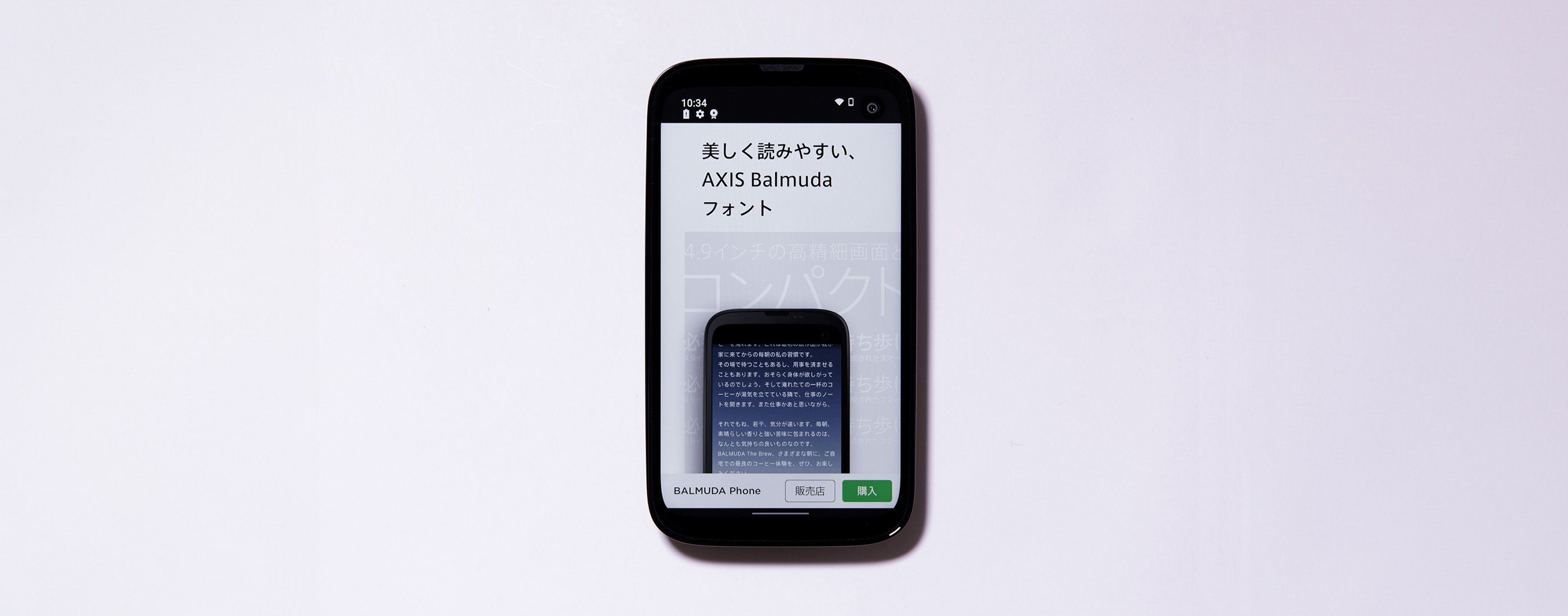
Improvement of Experience Value Through Lively Characters
BALMUDA is a creative technology company established in Tokyo in 2003. Their mission is to be helpful to others by achieving a future dreamed of by free minds using the power of technology. The new brand, BALMUDA Technologies, was created for the field of IT devices and services in August 2021. For its first product, the 5G BALMUDA Phone was announced. BALMUDA Phone is a smartphone with a 4.9 inch high definition screen and a beautifully curved back surface; its compact, lightweight, easy to hold, natural size hardware fits in the hand the longer you use it, and its basic application of a simple but comfortable feeling in use is originally developed.
It is BALMUDA’s view that many things done on a phone take place through characters shown on the screen, and the quality of fonts is connected to usability and the comfort of using a product. The value of parts that cannot be measured by specification was emphasized the most, and they aimed at improvement of experience value of the characters, which are in contact for a long time during smartphone use.
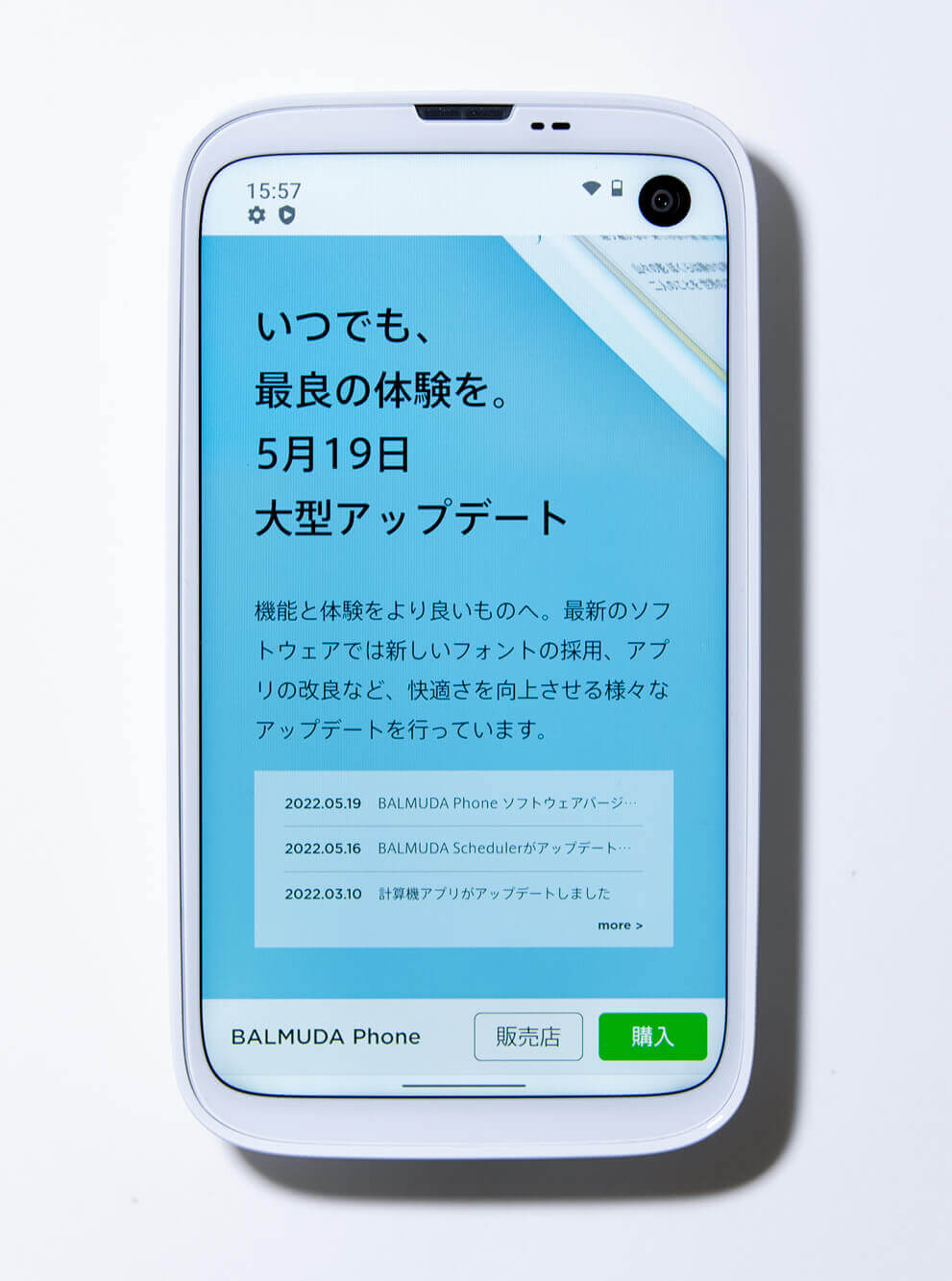
“Due to the wide inside space between strokes, the characters are clear and easy to read even when the size is reduced. This gives an elegant and light atmosphere in the moderately rounded element. My first impression of the weight was that it was easy to recognize even though it is thin, and reading is continuously comfortable. AXIS Font is understood as one of the most beautiful Japanese fonts in the company. According to consensus in the company, AXIS Font is the best in terms of Japanese readability and beauty of sentences,” says Designer Ryo Akao, UI Team, Technology Dept., IT Products Div.
Unlike household electric appliances in which the functions cannot be changed at all after shipment, it is possible to continuously improve the functions of smartphones by updating software after release. Out of a desire to improve the experience value of BALMUDA Phone after release, BALMUDA decided to replace the system font. As features of the system font, not only readability but also a reduced sense of wrongness is important. In addition to the appearance of various applications and websites, there is combination of languages apart from Japanese, emoji, etc. As the system font is also used in a part of the interface, it was necessary to eliminate a sense of wrongness under any circumstances.
Various updates, including application improvement, were made in May 2022 to improve comfort, to pursue beauty, readability, and balance of character combinations as a display font, and AXIS FitFont was adopted as “AXIS Balmuda” with the optimal numerical value.
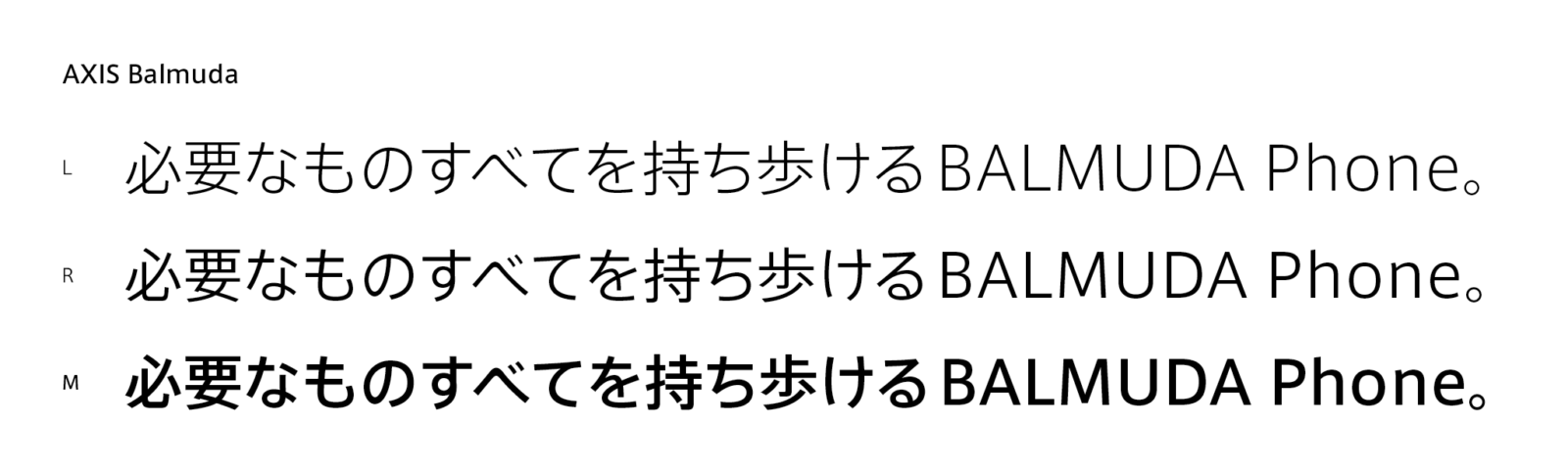
“Among numerous Japanese fonts, AXIS Font is above the crowd in terms of beauty and having no sense of wrongness. I was able to see the light in the FitFont service in which weight can be specified in greater detail. Due to significant differences in information typefaces have, such as base line, character size, weight, etc., I felt it was difficult to realize beautiful typesetting at the time of mixed typesetting of Japanese typefaces and Latin typefaces. However, I realized that the quality of mixed typesetting of Japanese and Latin improved drastically by utilizing the FitFont service.”
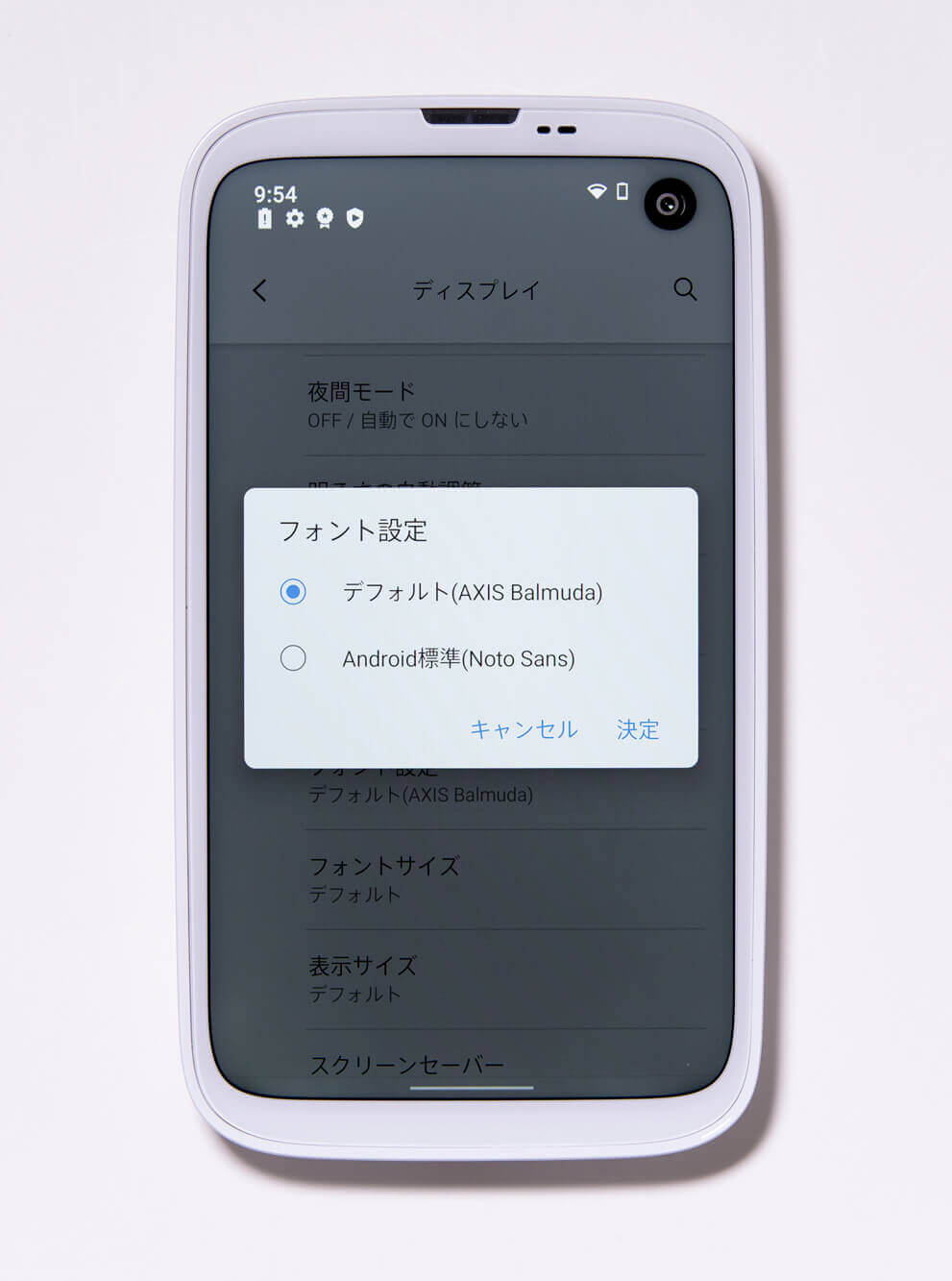
BALMUDA Phone is developed for the purpose of letting users use the basic functions simply and comfortably, such as a scheduler, calculator, camera, memo, and clock. For implementation, a huge number of images was verified, and new issues found in applications and systems were solved. As a result, favorable evaluation was obtained for sense of use, such as being easier to see and more comfortable to use.
“I felt the most distinct difference in the communication tools, such as chat, etc. For example, I felt that the delivered words ‘Good morning’ were
much more gentle and kind. The impression of the receiver is completely different, even with the same message. When the lively characters were actually experienced, the degree of difference was a surprise even in the company.”
BALMUDA wants to deliver an exciting, wonderful experience through electric appliances. We are a manufacturer that specializes not in time reduction or convenience, but are rather particular about the details not expressed in specifications, such as joy, wonder, and usability.
“We always pay attention to informing what we want to deliver as experience through communication in a customer’s life with our products. We spend a great deal of time in communication how to express such parts and spread information. Upon informing our customers about the adoption of ‘AXIS Balmuda’ as the system font, they updated successively, and we believe that they are enjoying the new experience.”